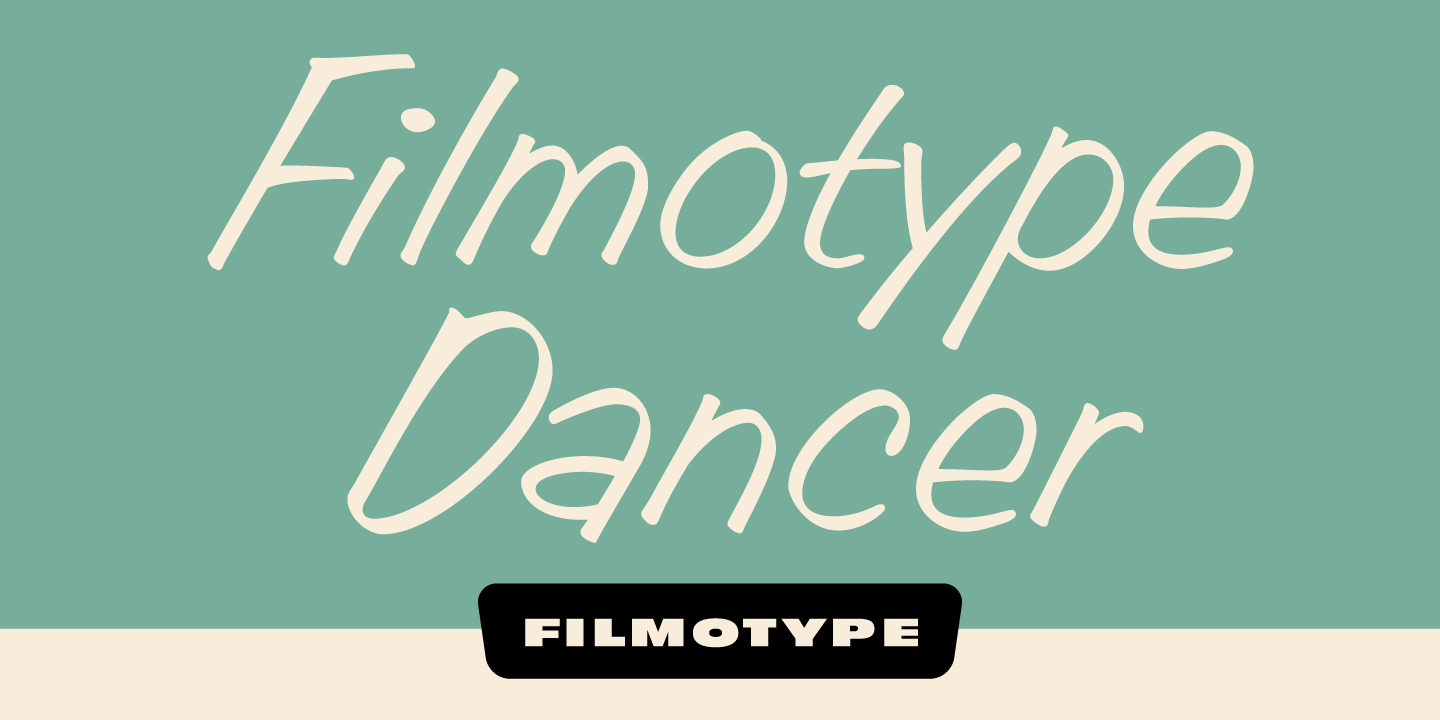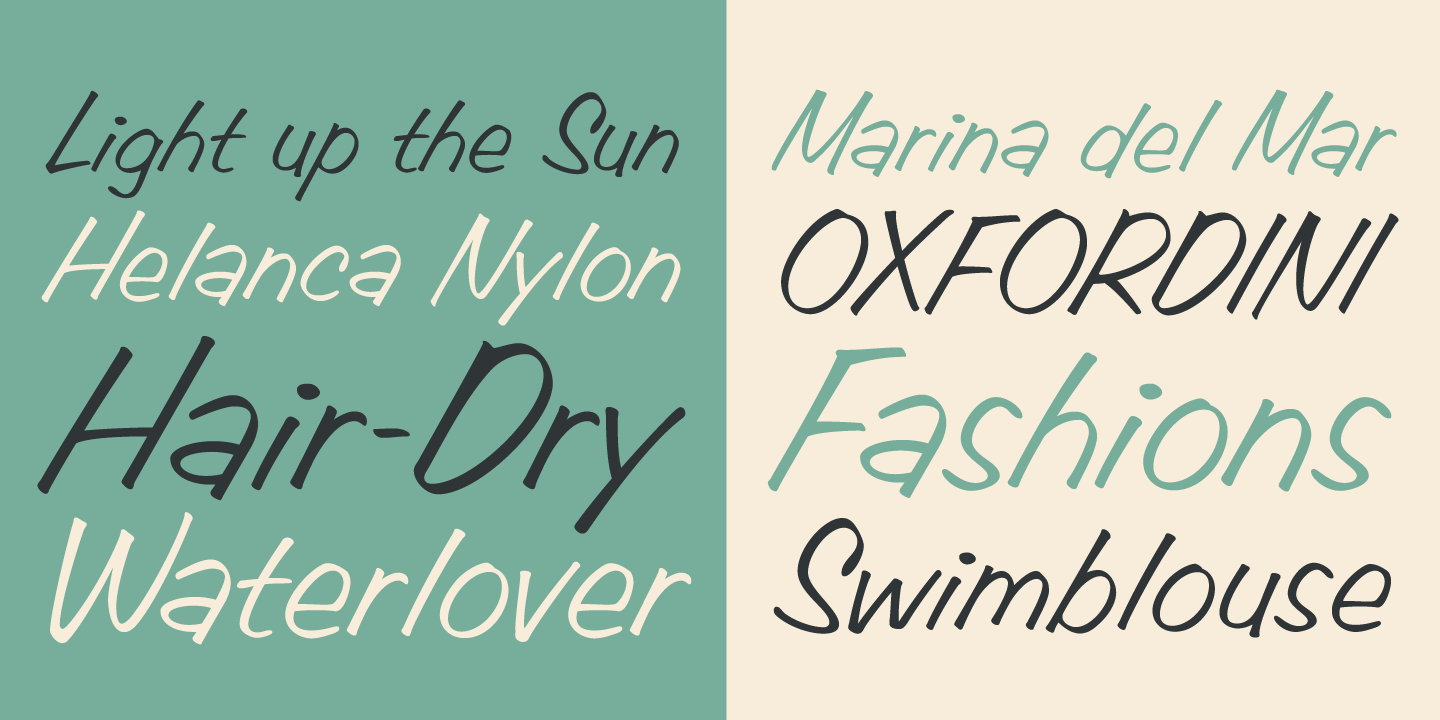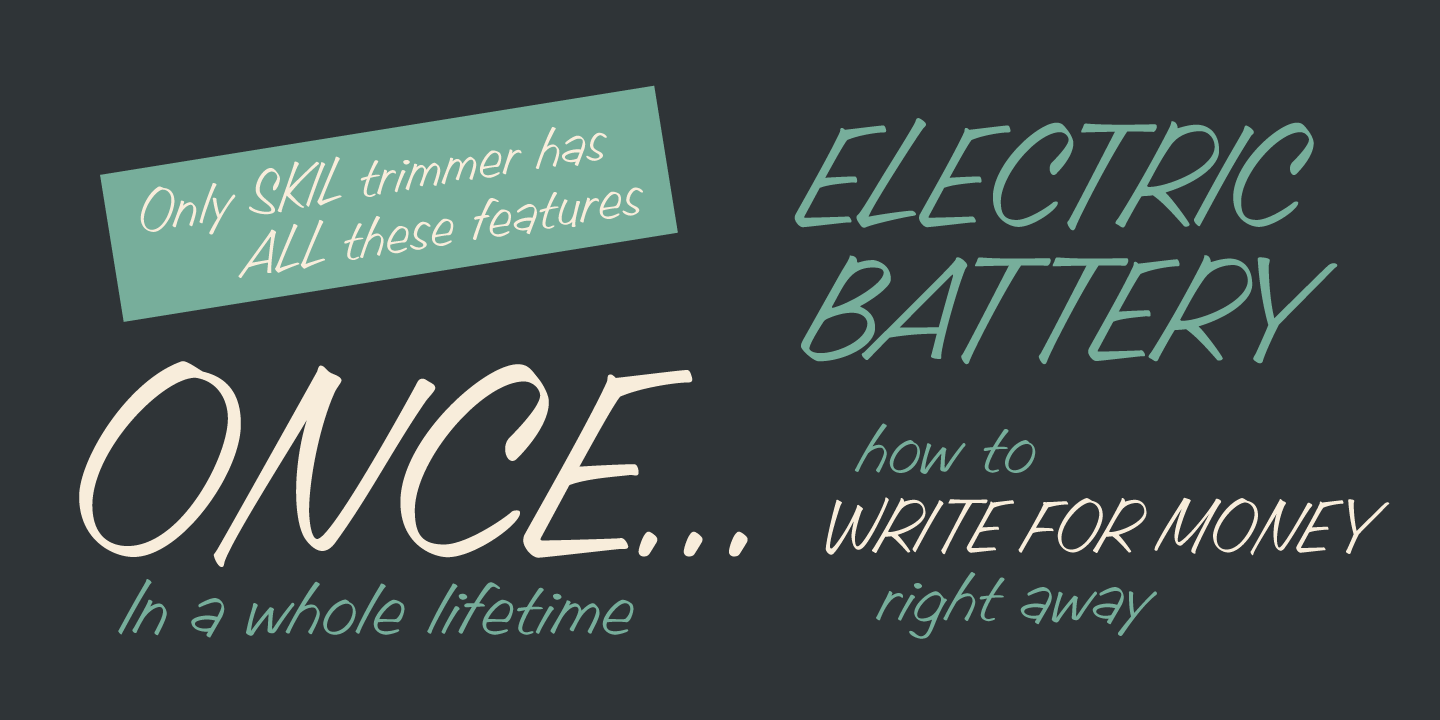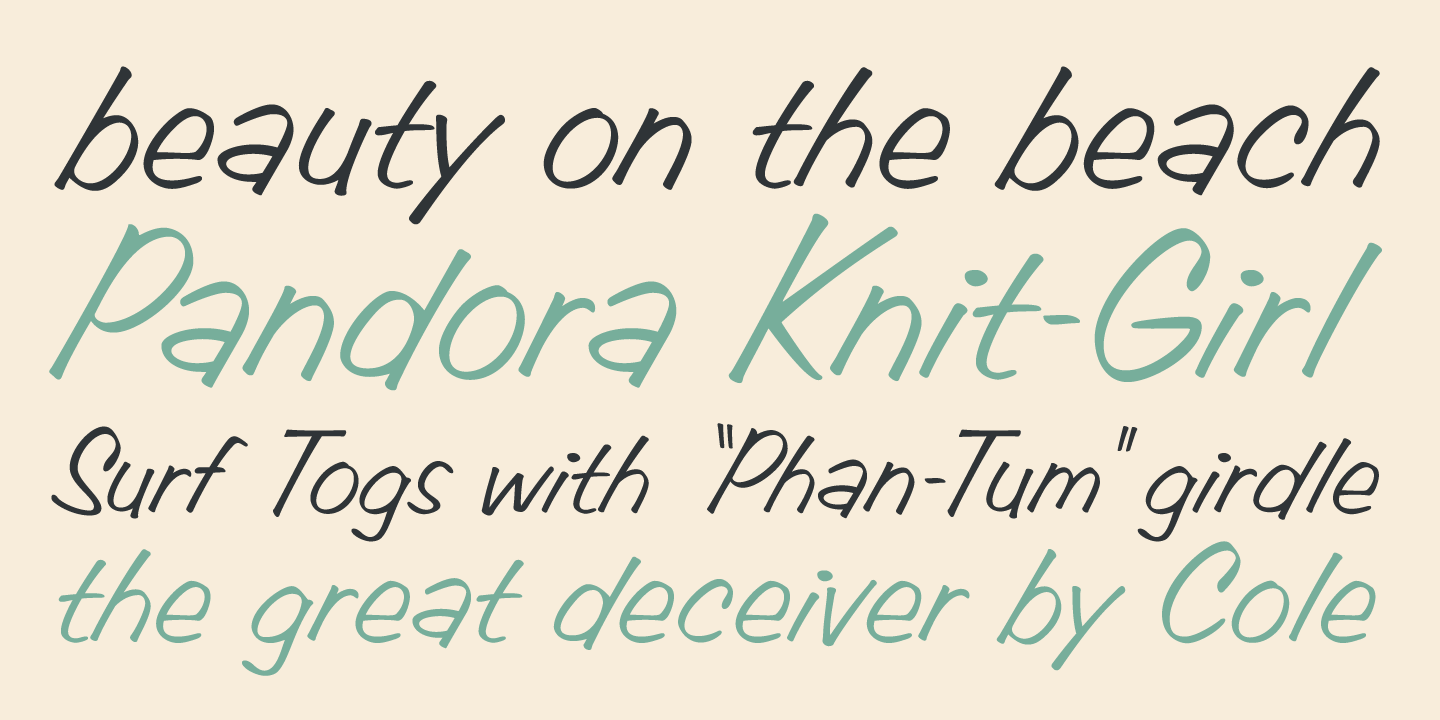
Filmotype Dancer
Dancer was one of the first fonts to join Filmotype's Casuals category in the early 1950s as its 'house' sho-card speed script. It's wonderfully readable with a generous 'x-height' with a friendly informal nature and timeless script look. Filmotype Dancer was developed from the original font filmstrips and includes a full international character compliment, automatic fractionals, ordinals, and a host of alternate characters in dynamic OpenType format.